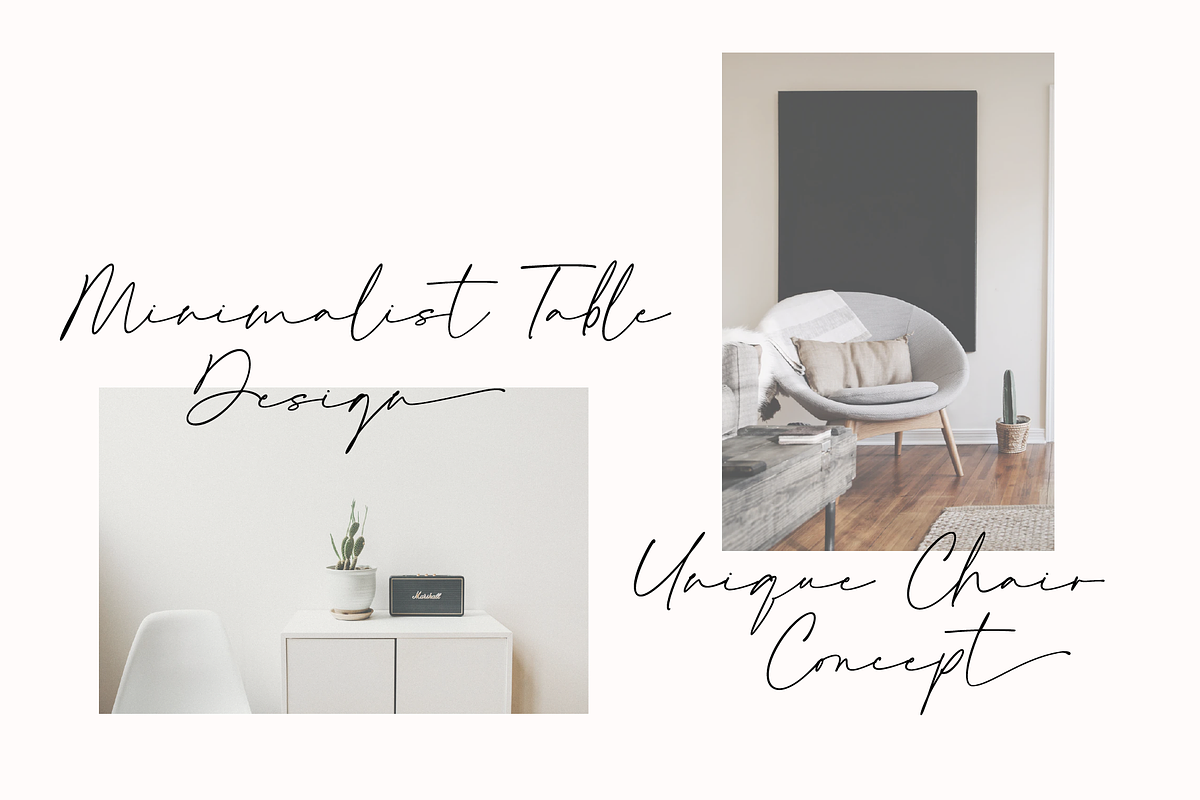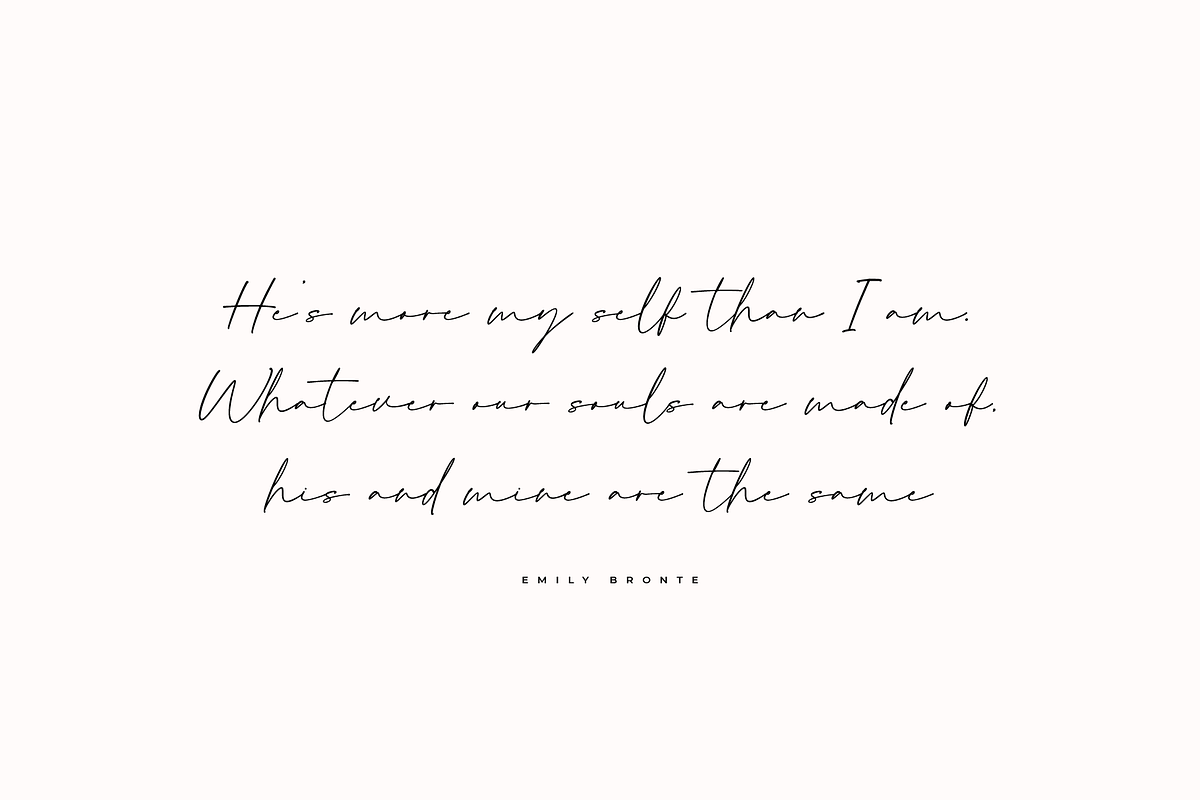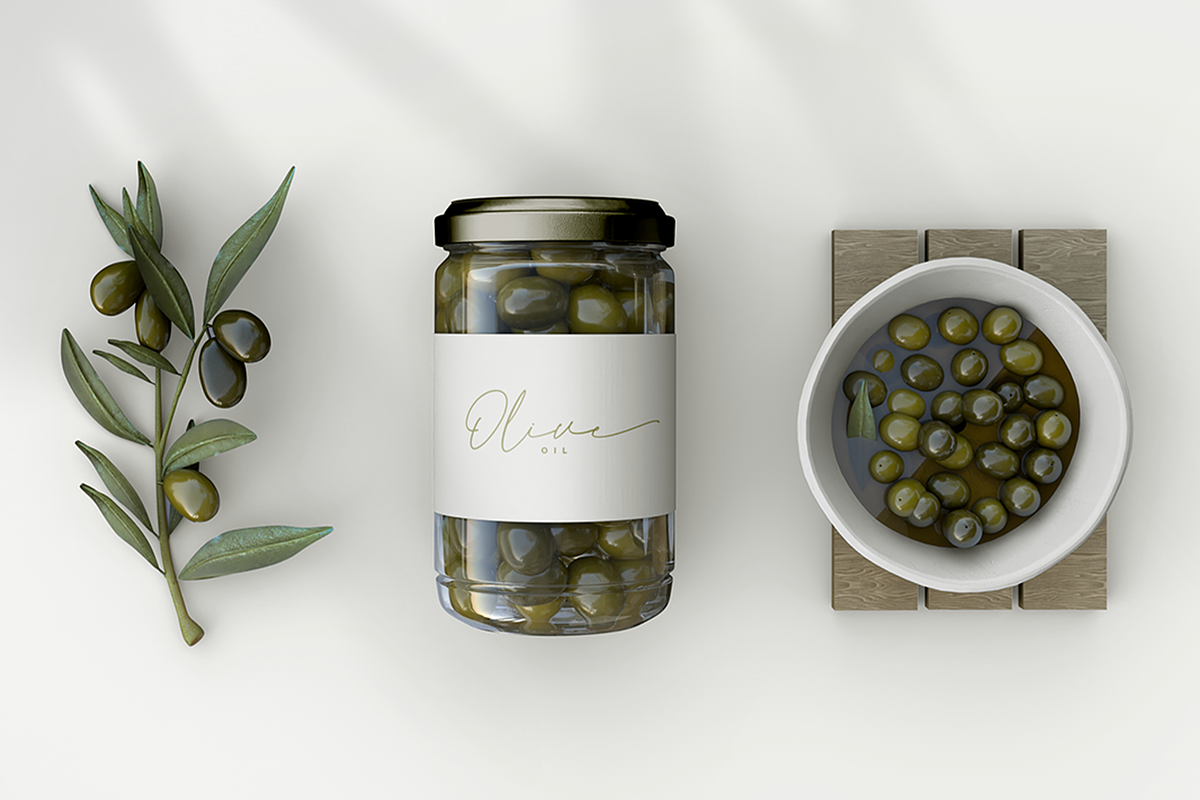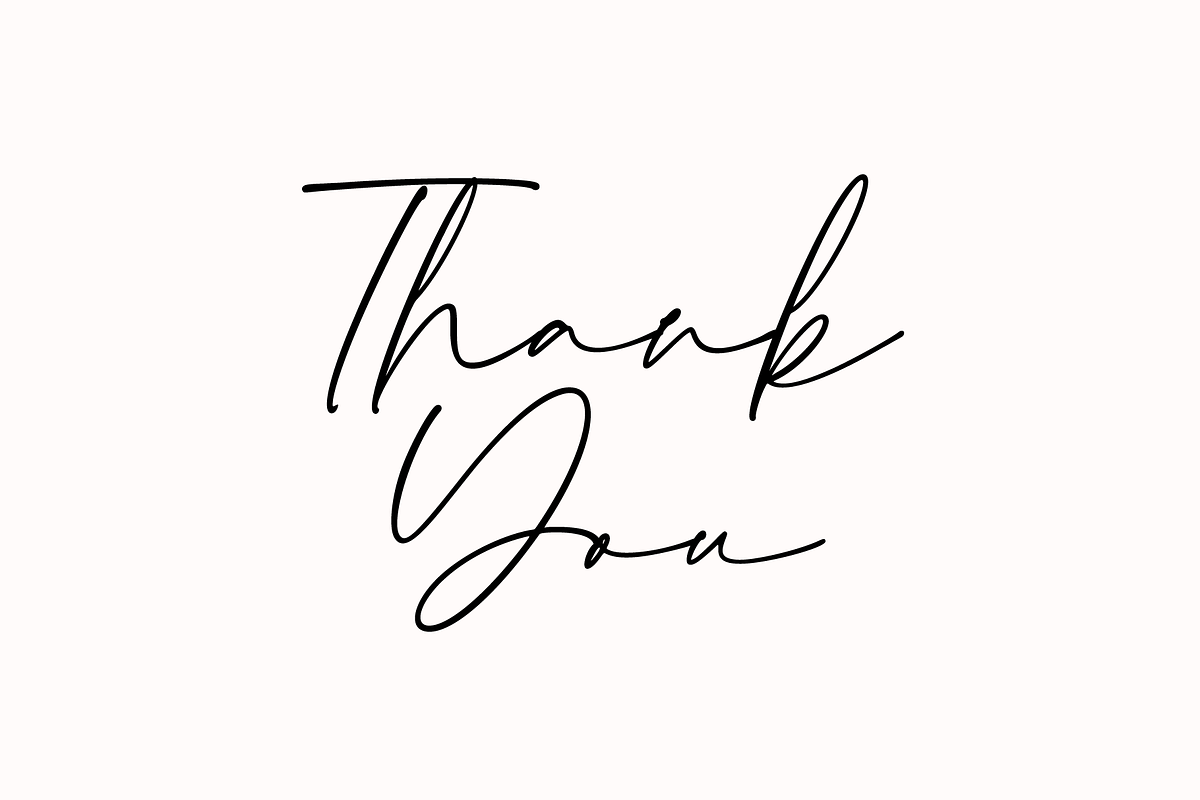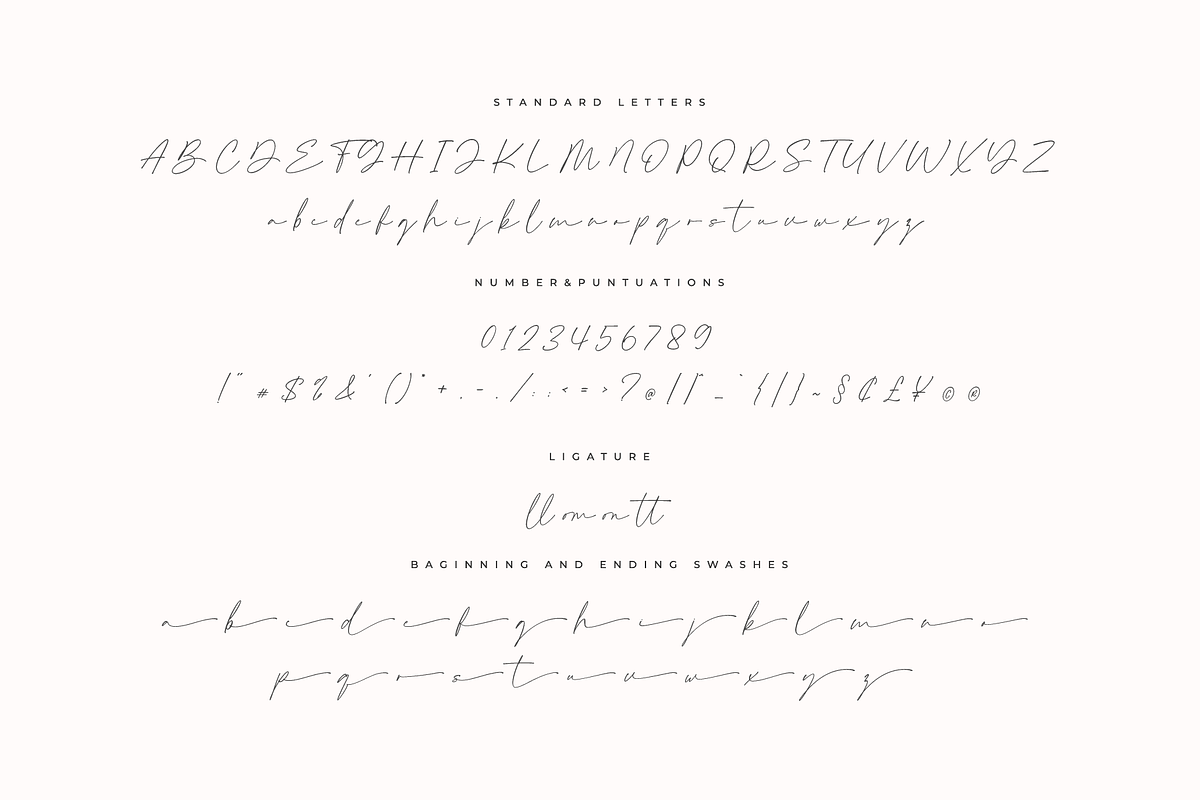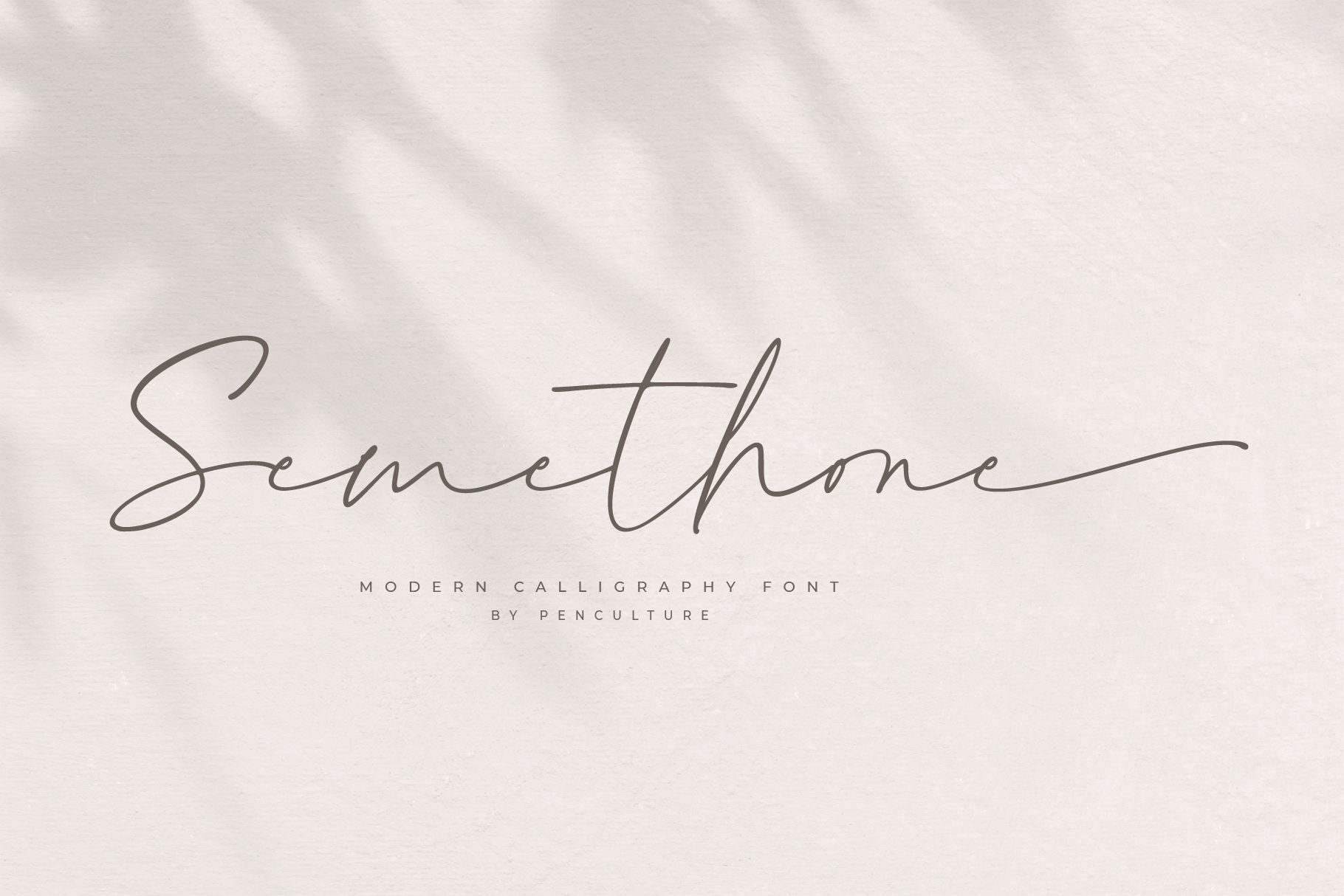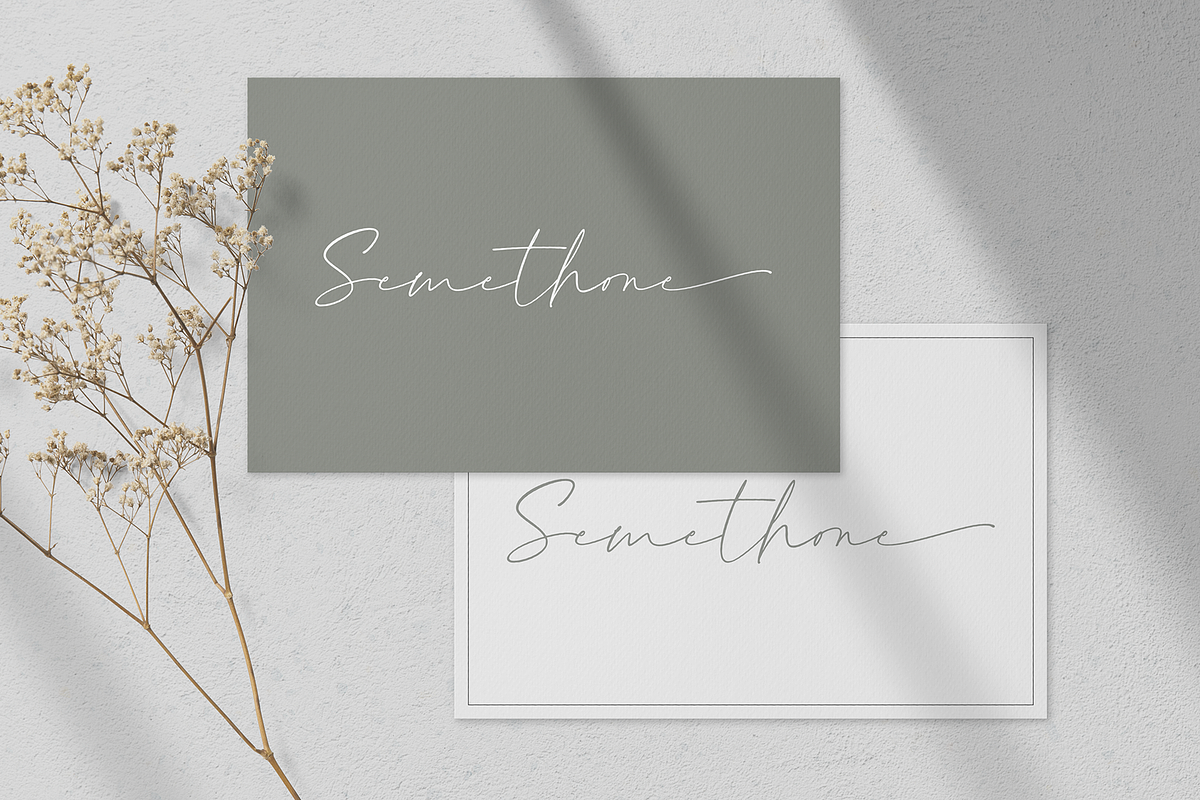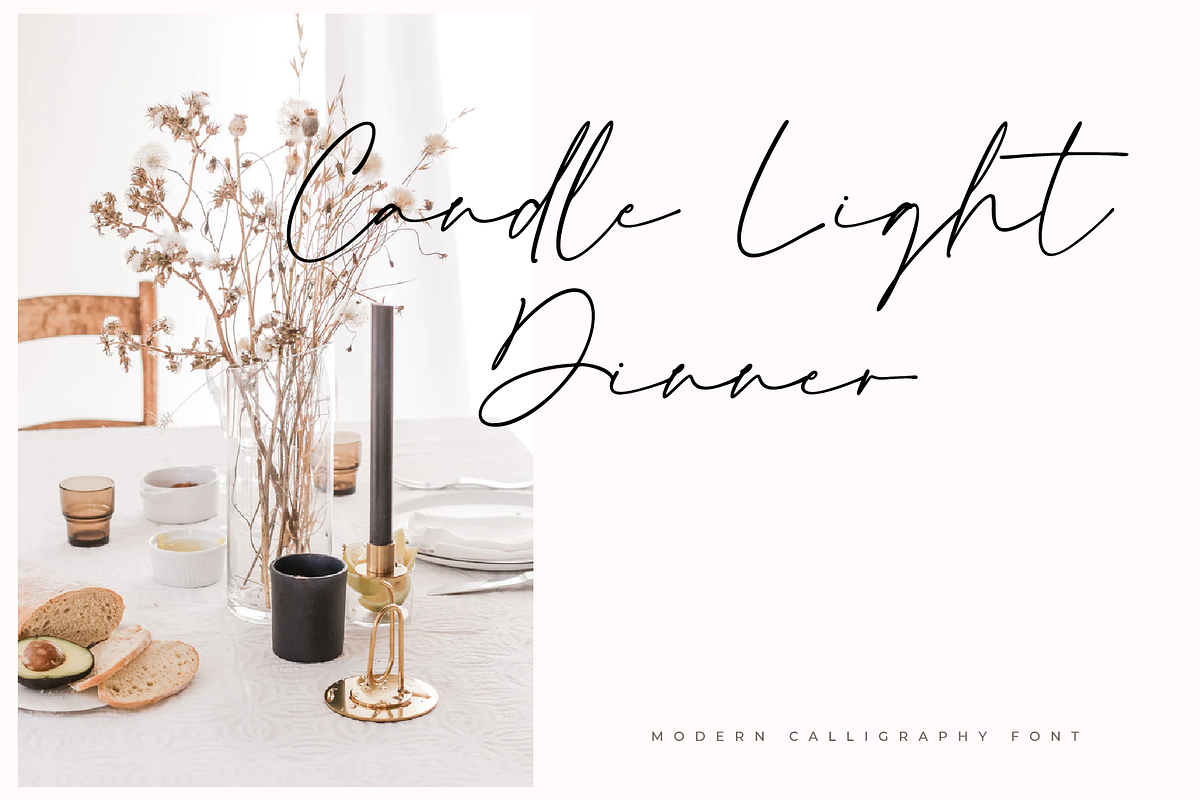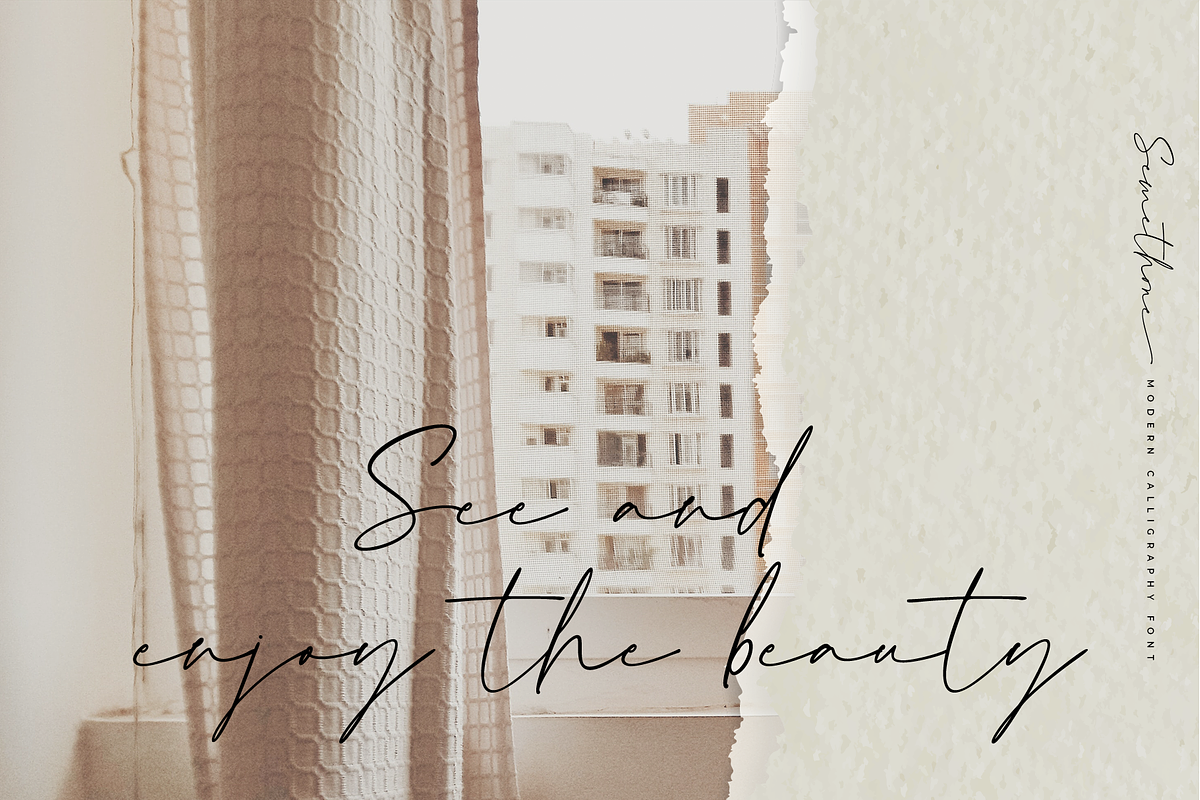
Semethone - Modern Calligraphy Font
Semethone is modern calligraphy font with chic style. It's perfect for branding, wedding invitation, card, signature, watermark for photography and many others.
Semethone come with beautiful set of hand lettered uppercase and lowercase, punctuation, multilingual language. This font also equipped with beautiful swashes and ligature which will be perfect for your design project.